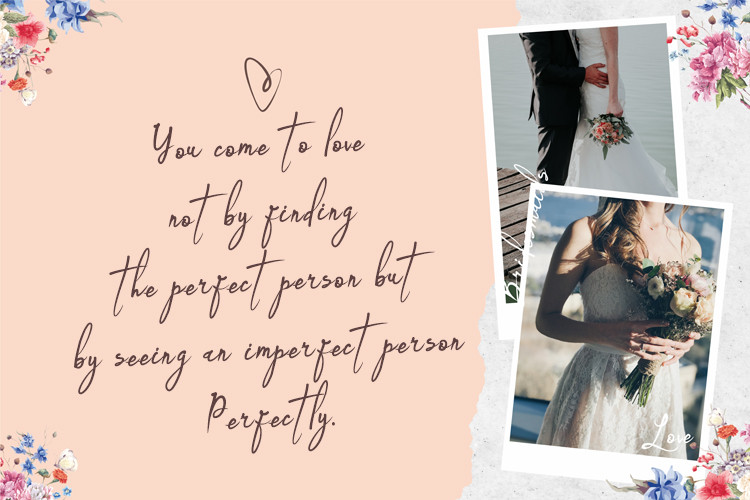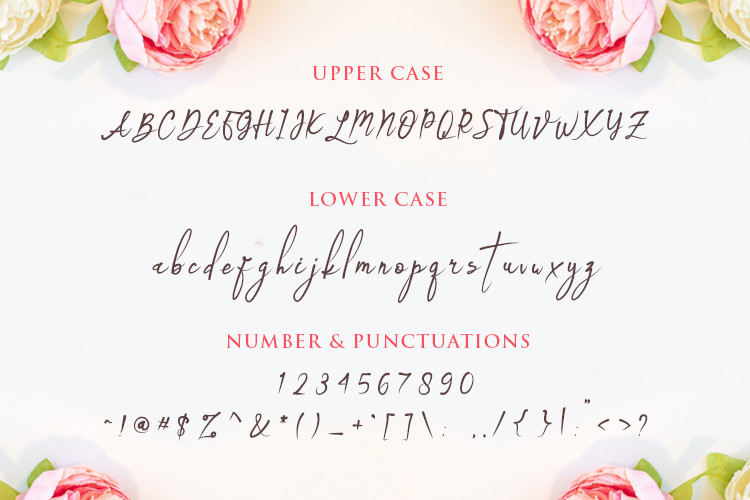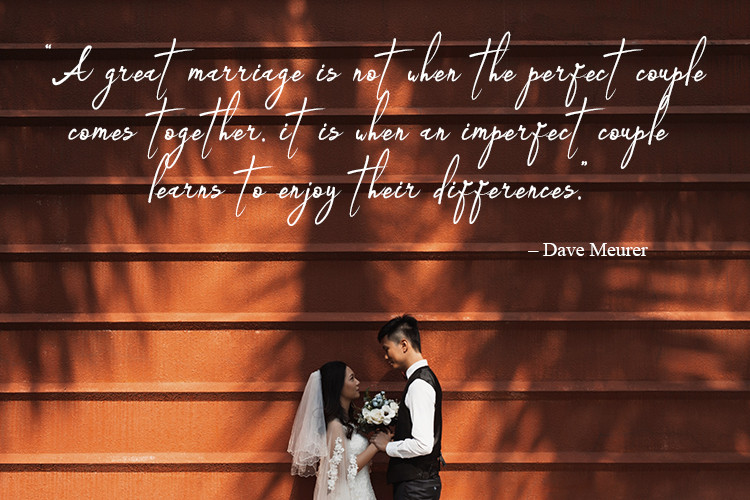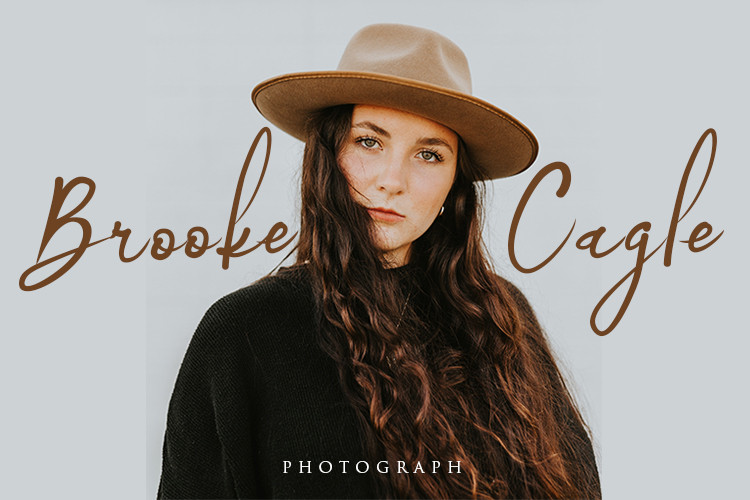
Bridesmaid Script Font
It’s an incredibly distinct, delicate and timeless handwritten font. It looks stunning on wedding invitations, thank you cards, quotes, greeting cards, logos, business cards and every other design which needs a handwritten touch.